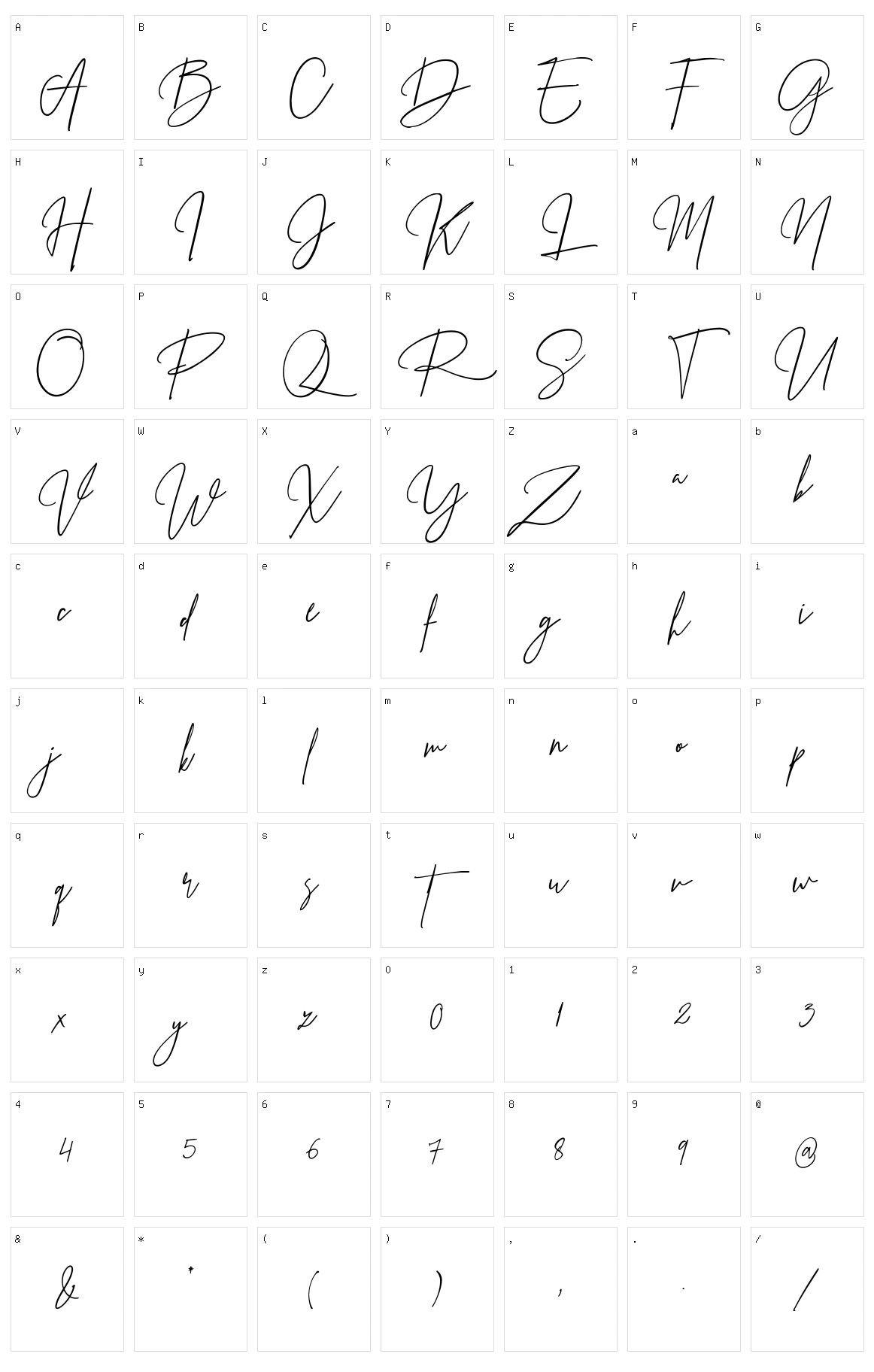
"Prestige Signature Script - Demo" is a an original type to recognize.
The font contains uppercase, lowercase and numerical
This font is great in logotypes and slogans.
Use it as the go-to font for your business' titles.